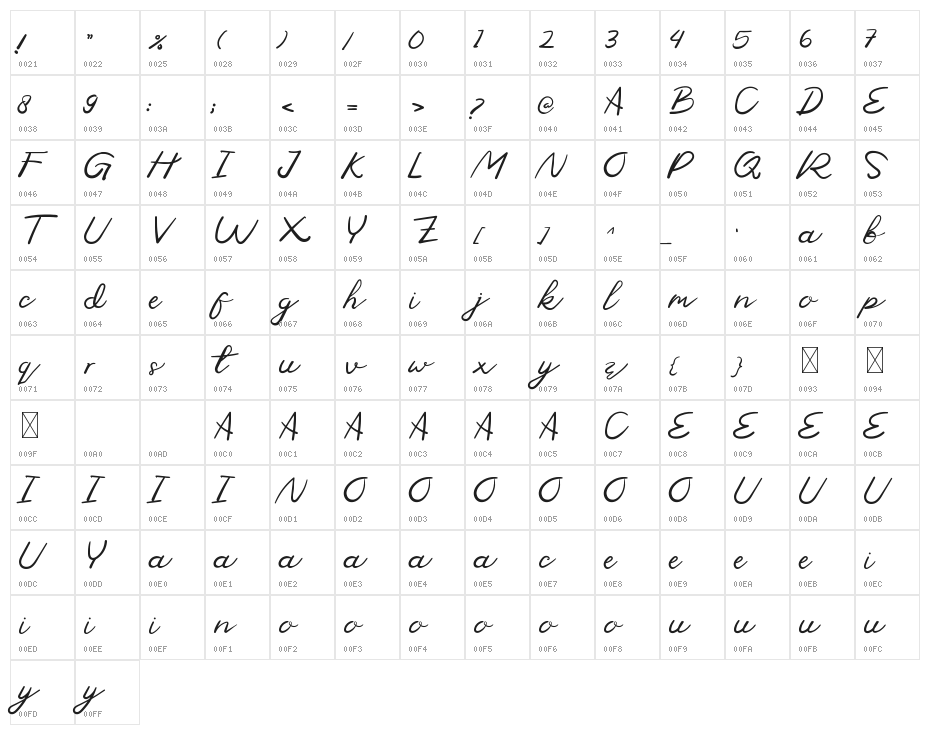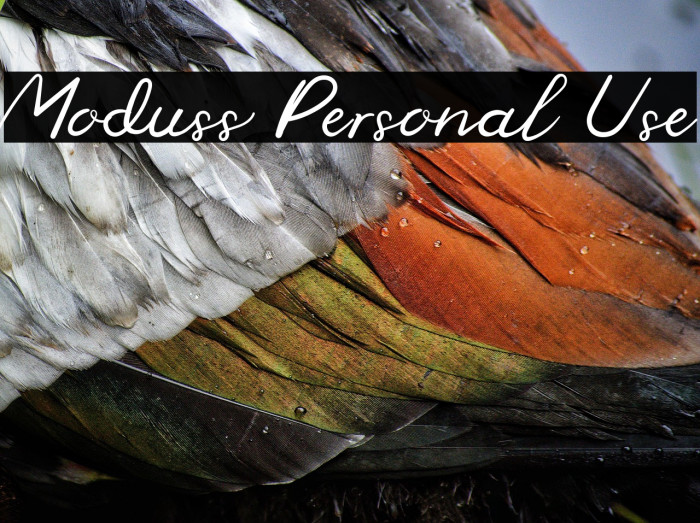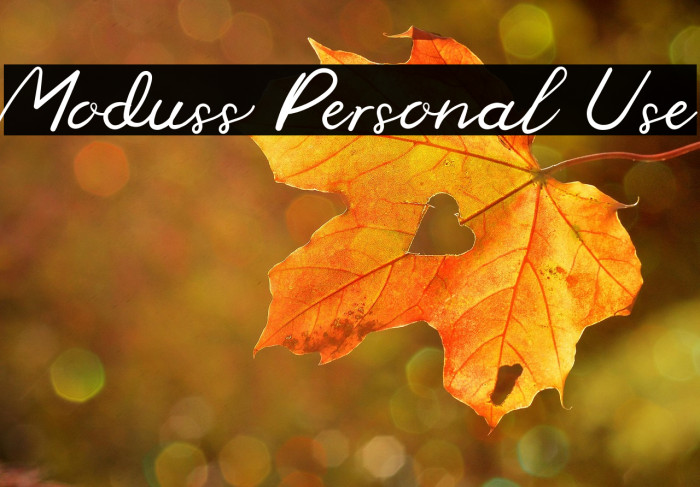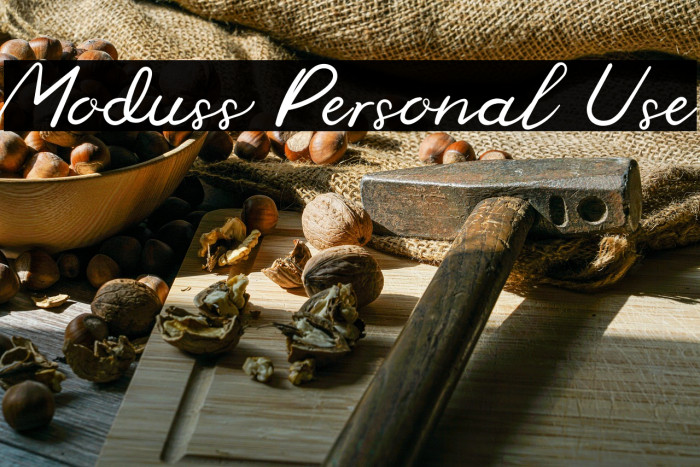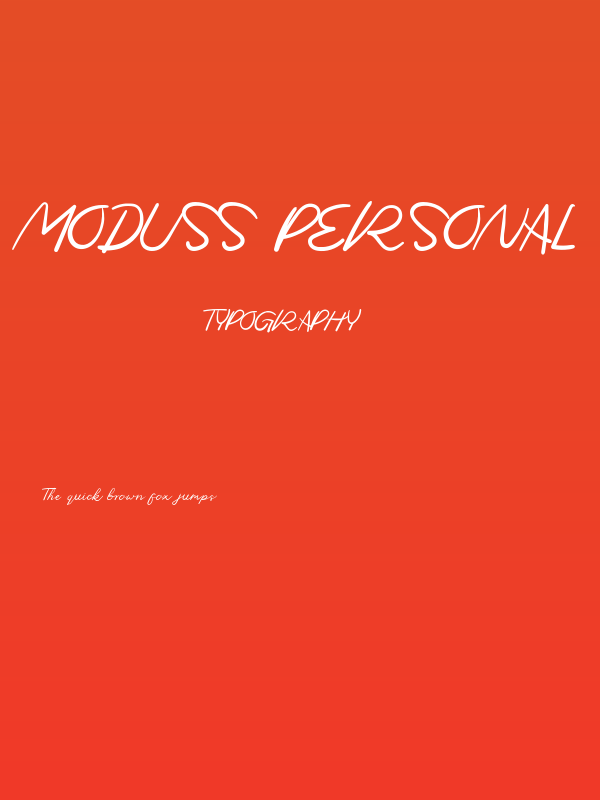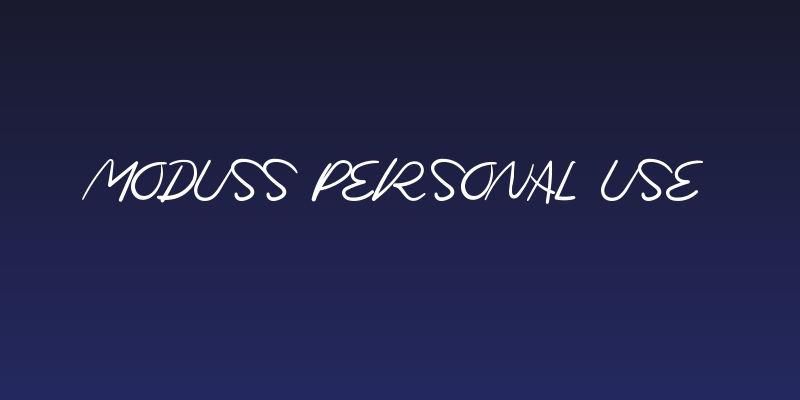
Moduss Personal Use Font
Moduss Personal Use Description
This font features a fluid and elegant script style, characterized by its smooth, flowing lines and cursive letterforms. The uppercase letters are slightly more structured, while the lowercase letters exhibit a more freeform, handwritten appearance. The numerals and special characters maintain the same cursive style, ensuring consistency throughout. The overall design is reminiscent of traditional calligraphy, with a modern twist that makes it versatile for various design applications. The strokes are moderately thick, providing a balanced contrast that enhances readability without sacrificing the artistic flair.